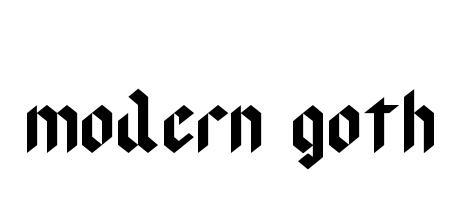
Modern Goth
By Agustín Senatore
Modern Goth: A bold, blackletter typeface, exuding a darkly elegant aesthetic. Its sharp angles and pointed serifs recall medieval calligraphy, yet the clean lines give it a contemporary edge. The letters are tightly spaced, creating a sense of mystery and intensity. It's a font that whispers of shadows and sophistication.